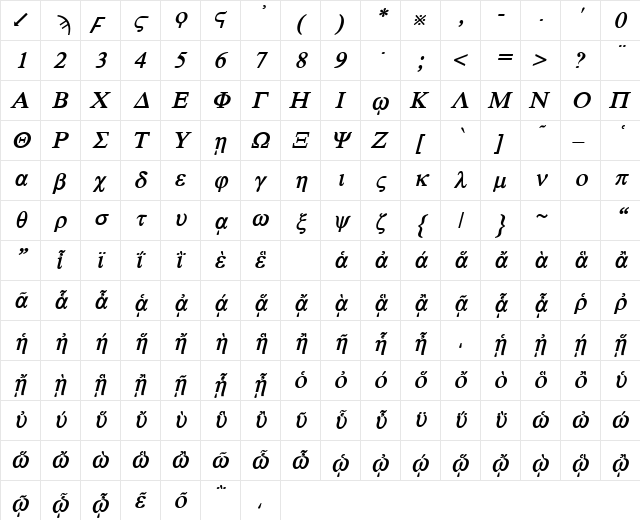
Standard Greek Bold Italic
Design Context for Standard Greek Typeface
Standard Greek is a composed and adaptable typeface that performs quietly and consistently across a wide range of design contexts. The dynamic lean of this cut emphasises speed and emphasis in any layout. The heavy weight commands attention and anchors typographic hierarchies.